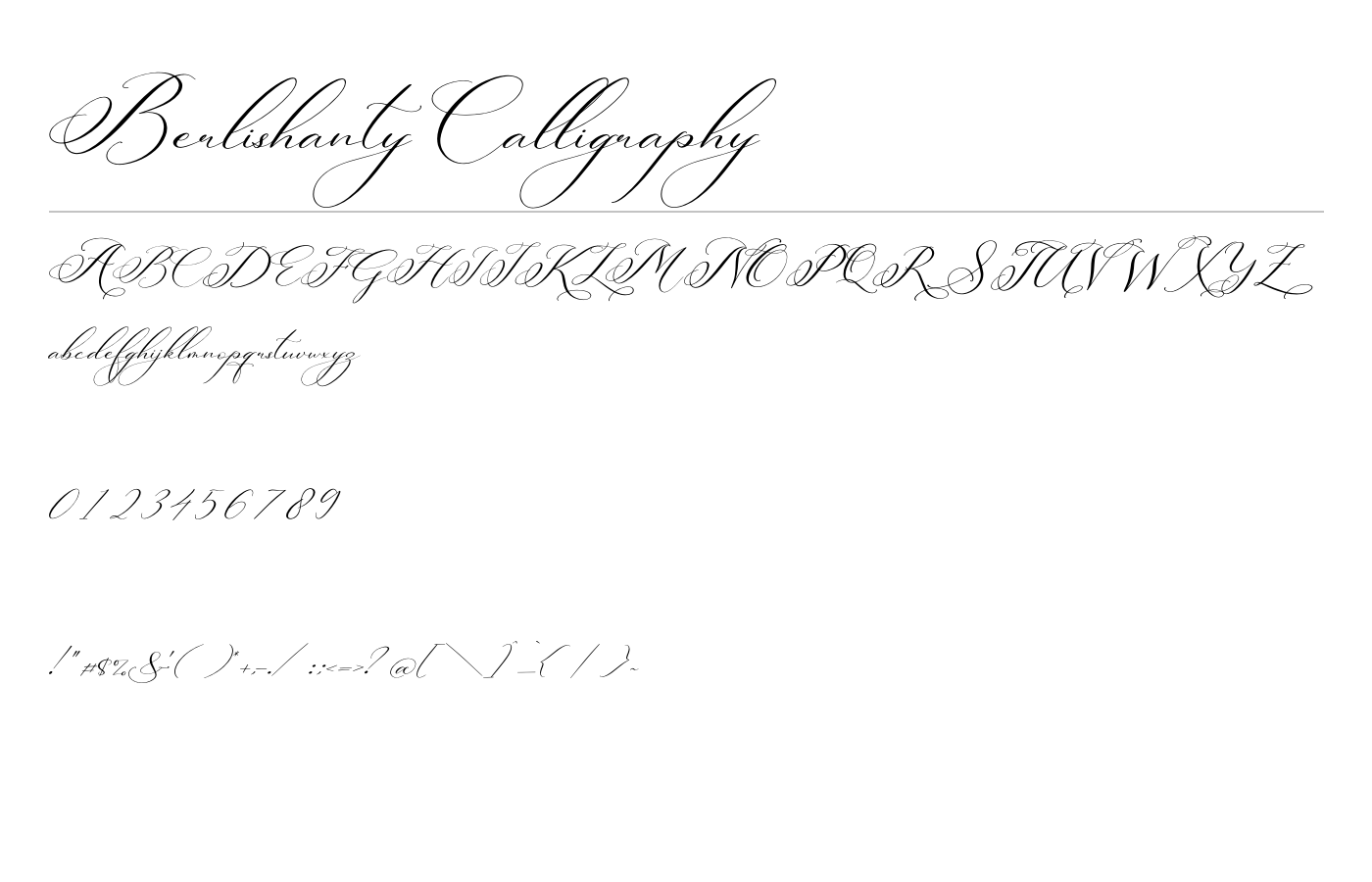
Berlishanty Calligraphy is an elegant, thin script font that beautifully captures the artistry of classic calligraphy with its flowing, delicate strokes and graceful swashes. Its refined, high-contrast lines and intricate letterforms make it ideal for luxury branding, wedding invitations, and sophisticated editorial projects where a touch of romantic charm and elegance is desired. This font shines in formal, decorative contexts, offering a timeless and stylish appeal.
Berlishanty Calligraphy Font
About Berlishanty Calligraphy Font